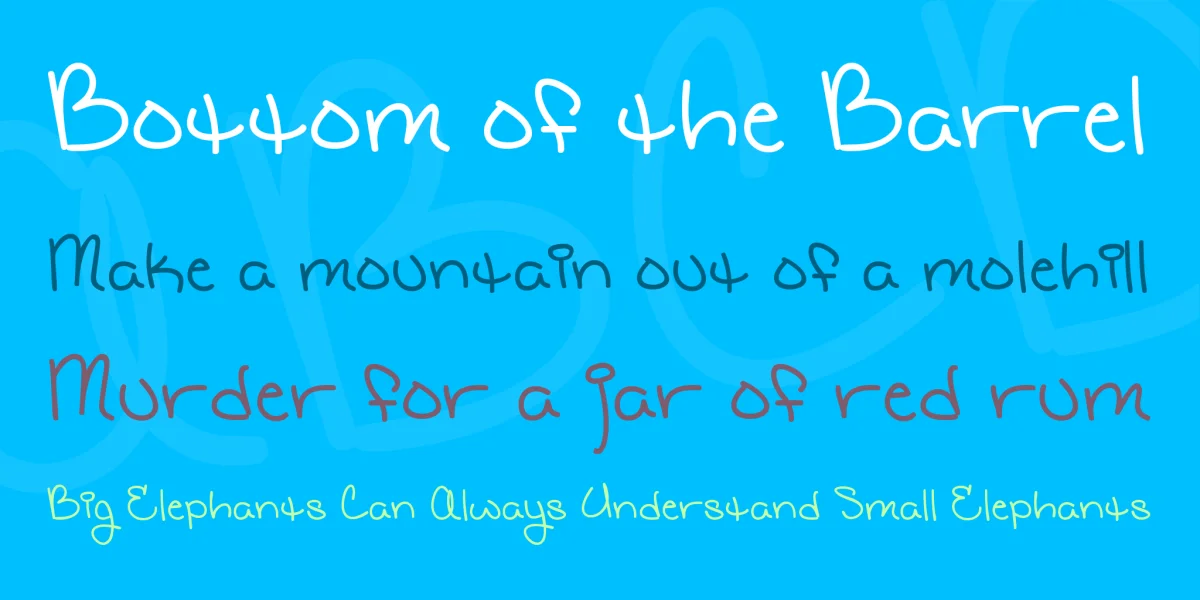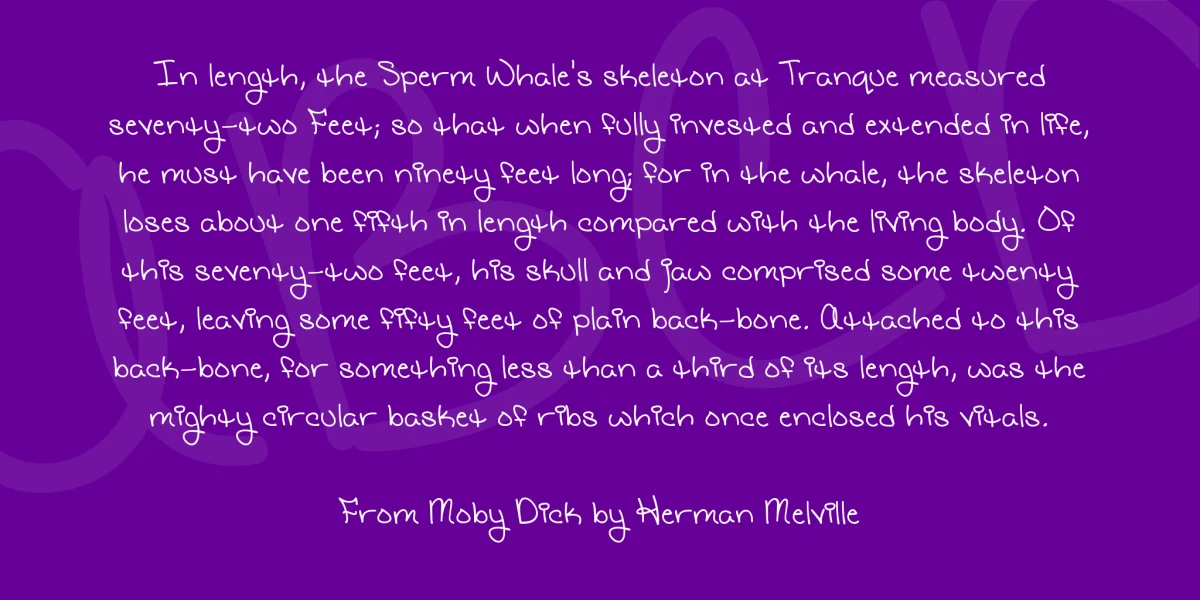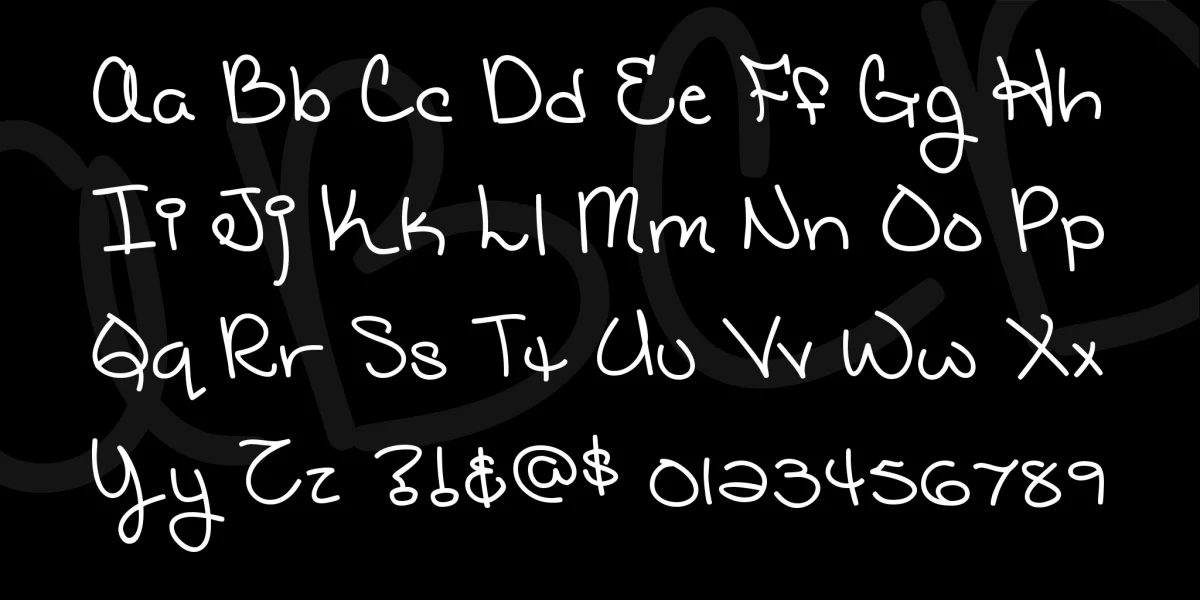
So like, you totally need a font for, like, teenage girls’ handwriting, and you like, totally can’t find one? Well, pshaaa! Blambot has one now! It even has these totally rad little heart thingies for the [ ] keys!